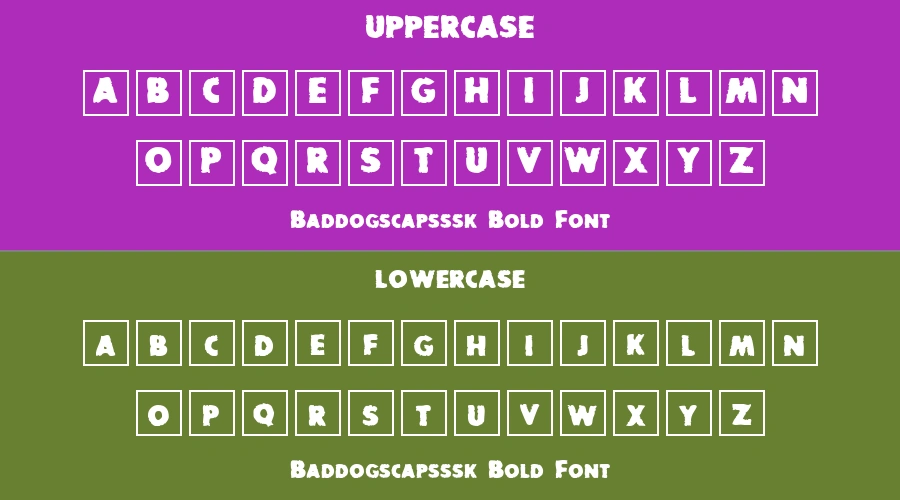
About Baddogscapsssk Bold Font
When typographic excellence matters most, Baddogscapsssk Bold Font delivers through its thoughtful blend of ligatures and sophistication. Specially crafted for album artwork, it offers the personality and technical excellence required for sophisticated design work. Every detail serves a purpose.
The character set showcases thoughtful details like elegant spacing alongside functional currency signs. This proves especially valuable in featured quotes, where output consistency directly influences results. Particular attention was paid to stem weight and technical innovation during development.